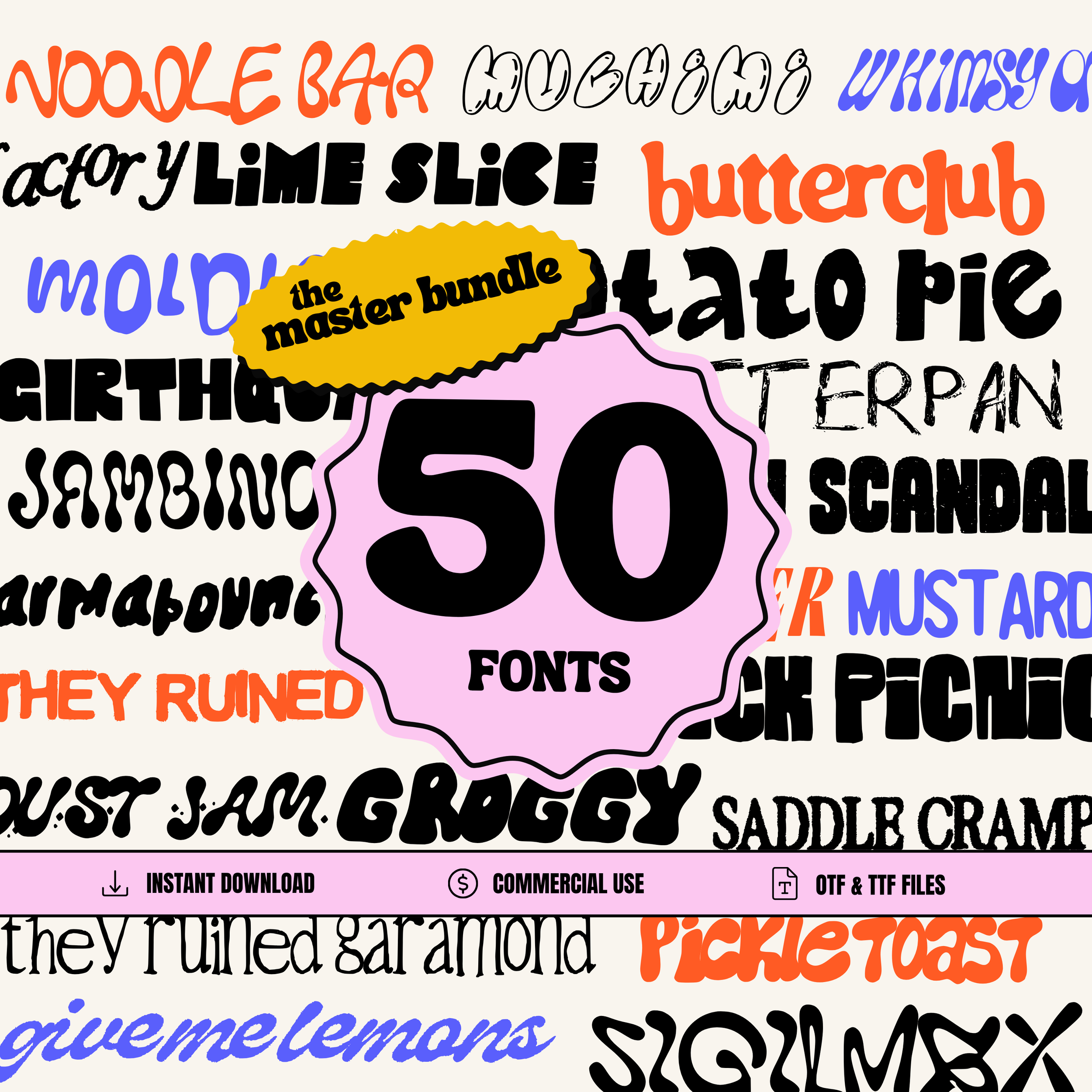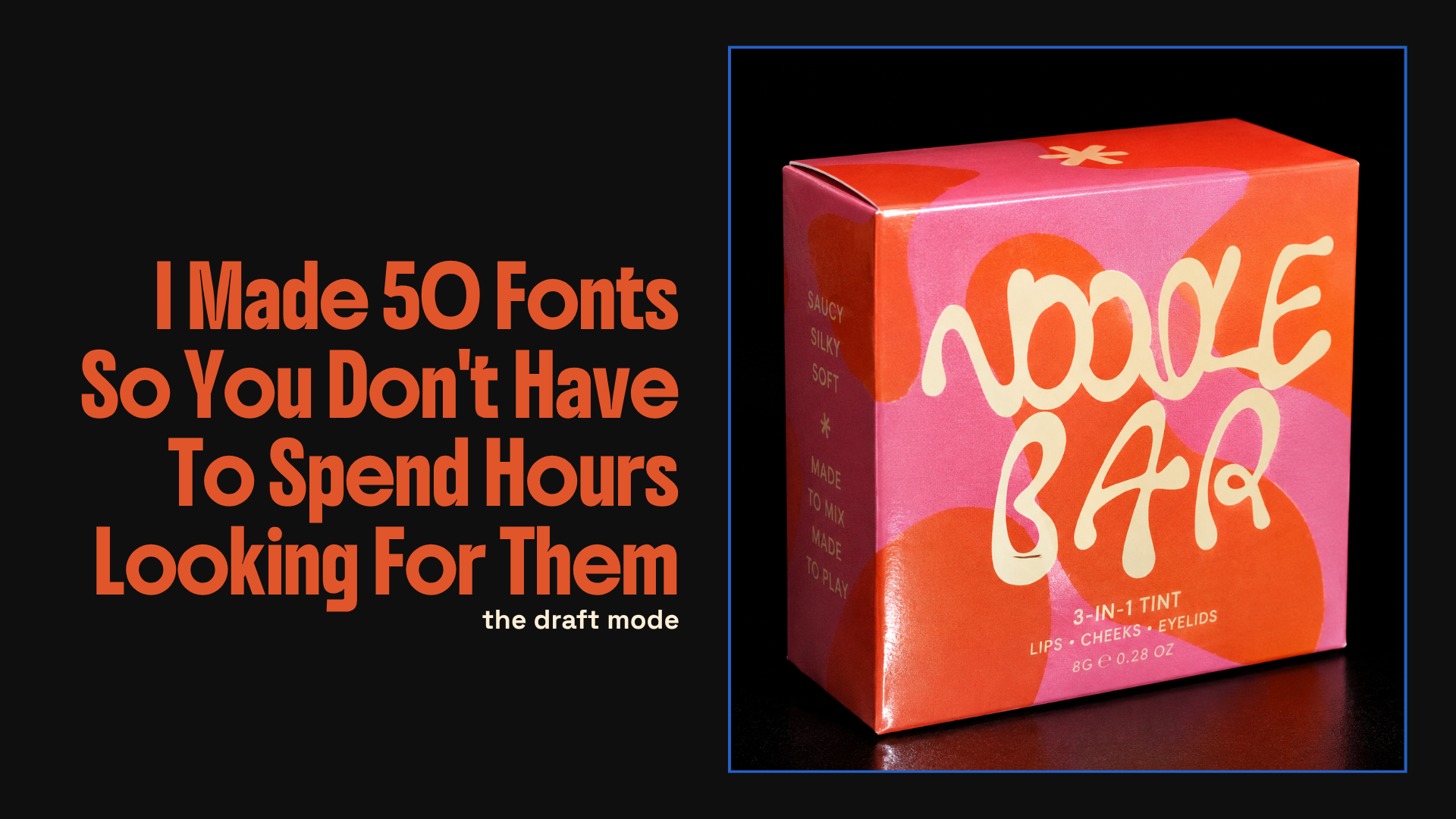
“The goal was never really to create fifty fonts. The goal was to create a collection that makes starting a project easier. Less searching, less downloading, less scrolling…“
The Font Spiral Is Real
If you're a graphic designer, there's a good chance you've experienced the font spiral. You open a project, whether it's a poster, branding project, packaging design, or social media graphic, and everything is going smoothly until you reach the typography. Suddenly you're twenty tabs deep comparing fonts that all somehow look completely different and exactly the same at the same time.
An hour later you've downloaded twelve more fonts, used none of them, and gone back to the same one you've been using for years.
I've done this more times than I'd like to admit.
How We End Up Collecting Fonts
The funny thing is that most designers don't actually have a font problem. We have a decision problem. Most of us already own more fonts than we'll ever realistically use, but when it comes time to start a new project, none of them feel quite right.
At some point many designers accidentally become font collectors. We download fonts because they might be useful one day. Then we download another. Then another. Before long we've got hundreds, sometimes thousands, sitting in folders across our computers.
The problem isn't having too few fonts. It's having too many average ones and not enough genuinely useful ones.
The Fonts I Actually Use
That's actually one of the reasons I started creating my own fonts. Instead of endlessly searching for typography I might use once and forget about, I wanted a collection of fonts that covered the styles I genuinely reach for in real projects.
After years of creating posters, branding projects, merchandise, album artwork, packaging and social media graphics, I've noticed I keep coming back to the same categories of fonts. Bold retro display fonts. Chunky statement fonts. Playful handwritten lettering. Quirky editorial styles. Fonts with personality. Fonts that feel a little less polished and a little more human.
The specific font changes from project to project, but the categories rarely do.
Building The Collection
When I started putting together The Complete Master Font Bundle, I wasn't interested in creating fifty versions of the same thing. I wanted a collection that could handle different types of creative work without constantly forcing people back into another font search.
That's why the bundle includes everything from retro display fonts and bubble lettering through to branding fonts, handmade styles, quirky editorial typography and chunky statement fonts.
How Fifty Fonts Happened
Originally I made one font. Then another. Then another.
Each time there was a style I wanted that I couldn't quite find elsewhere. Something bolder. Something messier. Something weirder. Something more playful.
At some point I realised I'd accidentally created fifty fonts, which feels slightly ridiculous now that I write it down.
The Complete Master Font Bundle
Rather than leaving them spread across dozens of separate listings, I decided to bring everything together into one collection.
The Complete Master Font Bundle contains 50 commercial use fonts designed for branding, posters, packaging, merchandise, social media graphics, album artwork and client work. It also includes three exclusive fonts, Jet Childish, Asphalt Kid and Scatterpan, which aren't available anywhere else.
Less Searching, More Designing
The goal was never really to create fifty fonts. The goal was to create a collection that makes starting a project easier. Less searching, less downloading, less scrolling through font websites wondering why every font suddenly looks the same.
If you've ever spent an hour looking for the perfect font only to end up using the same one again, you're definitely not alone.
The Complete Master Font Bundle is my attempt to solve that problem.
Or at the very least, reduce the number of font tabs you currently have open.